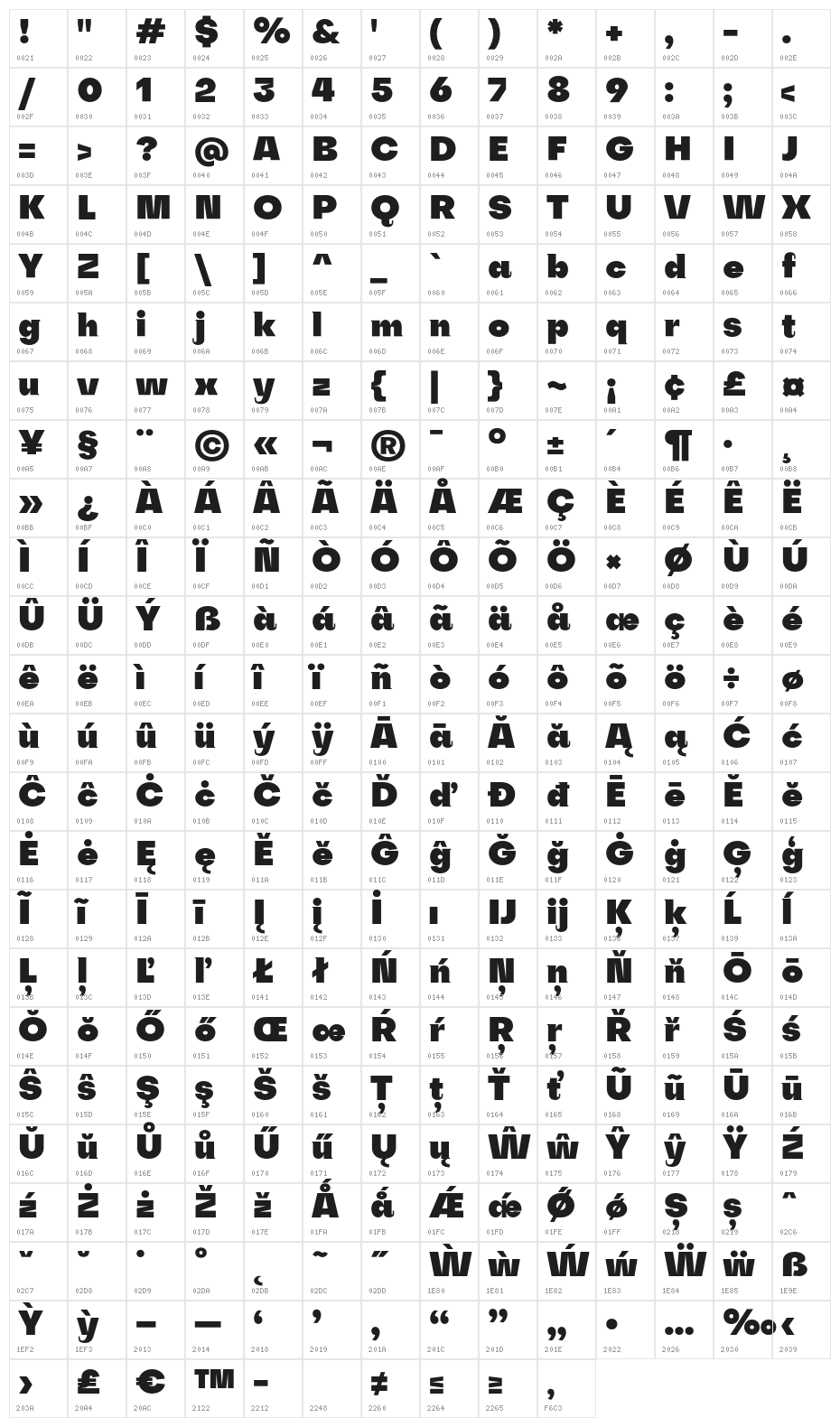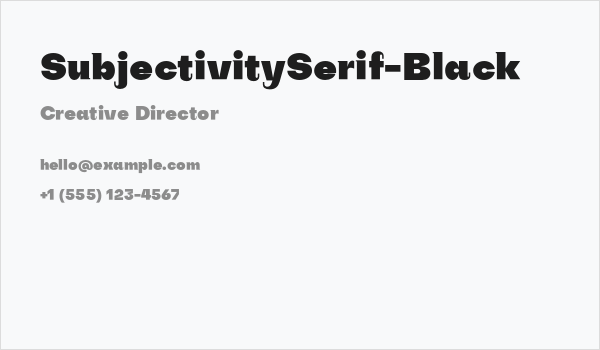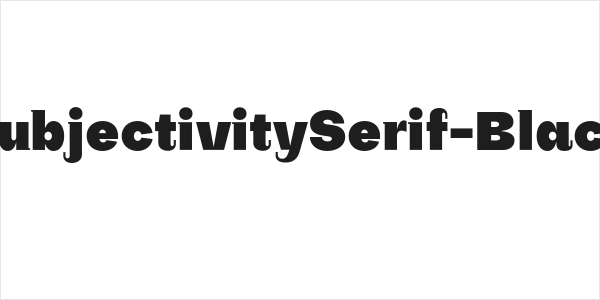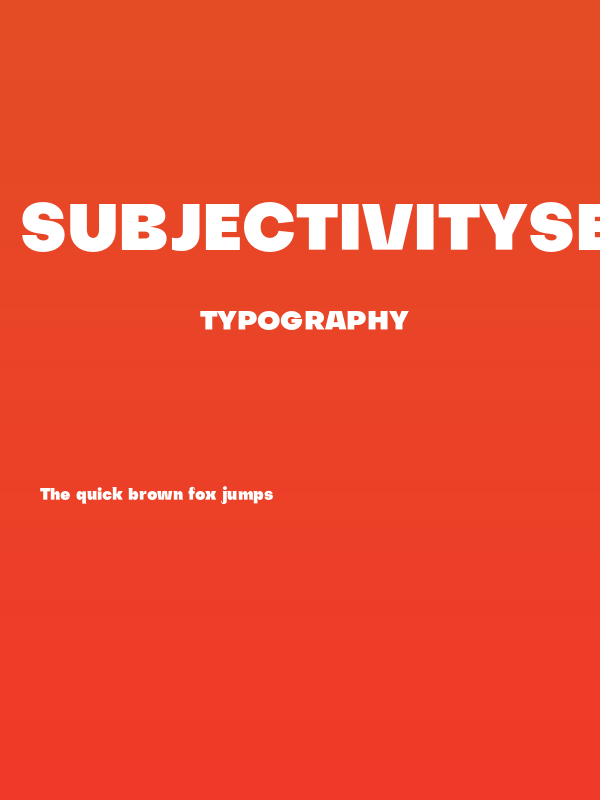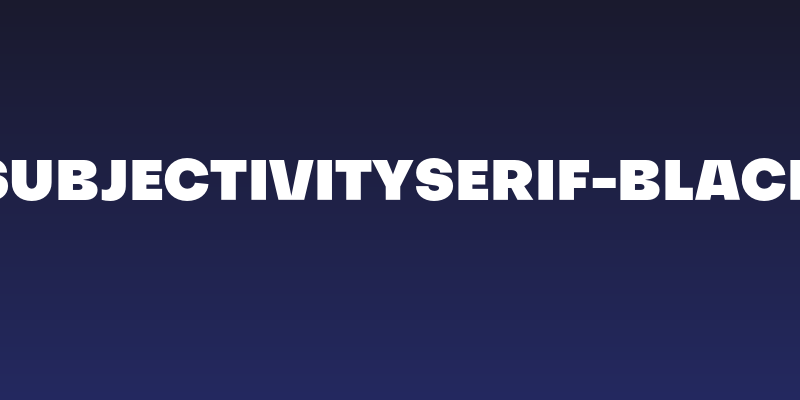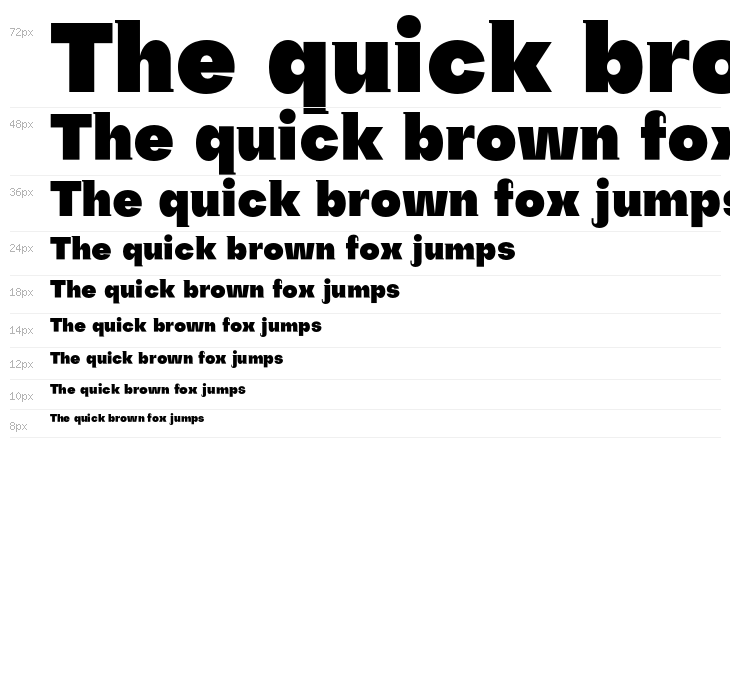
SubjectivitySerif-Black Font
SubjectivitySerif-Black Description
This font features bold, thick strokes with a strong presence, making it highly suitable for impactful designs. The characters are well-defined with a uniform thickness, contributing to a cohesive and robust appearance. The uppercase and lowercase letters maintain a consistent style, ensuring readability and visual harmony. The numerals and special characters are crafted to match the overall bold aesthetic, providing a comprehensive set for various design needs. The font's design is modern yet timeless, offering versatility for a range of applications.
| Proposed Projects | Ideal for headlines, posters, branding, and advertising where a strong visual impact is desired. |